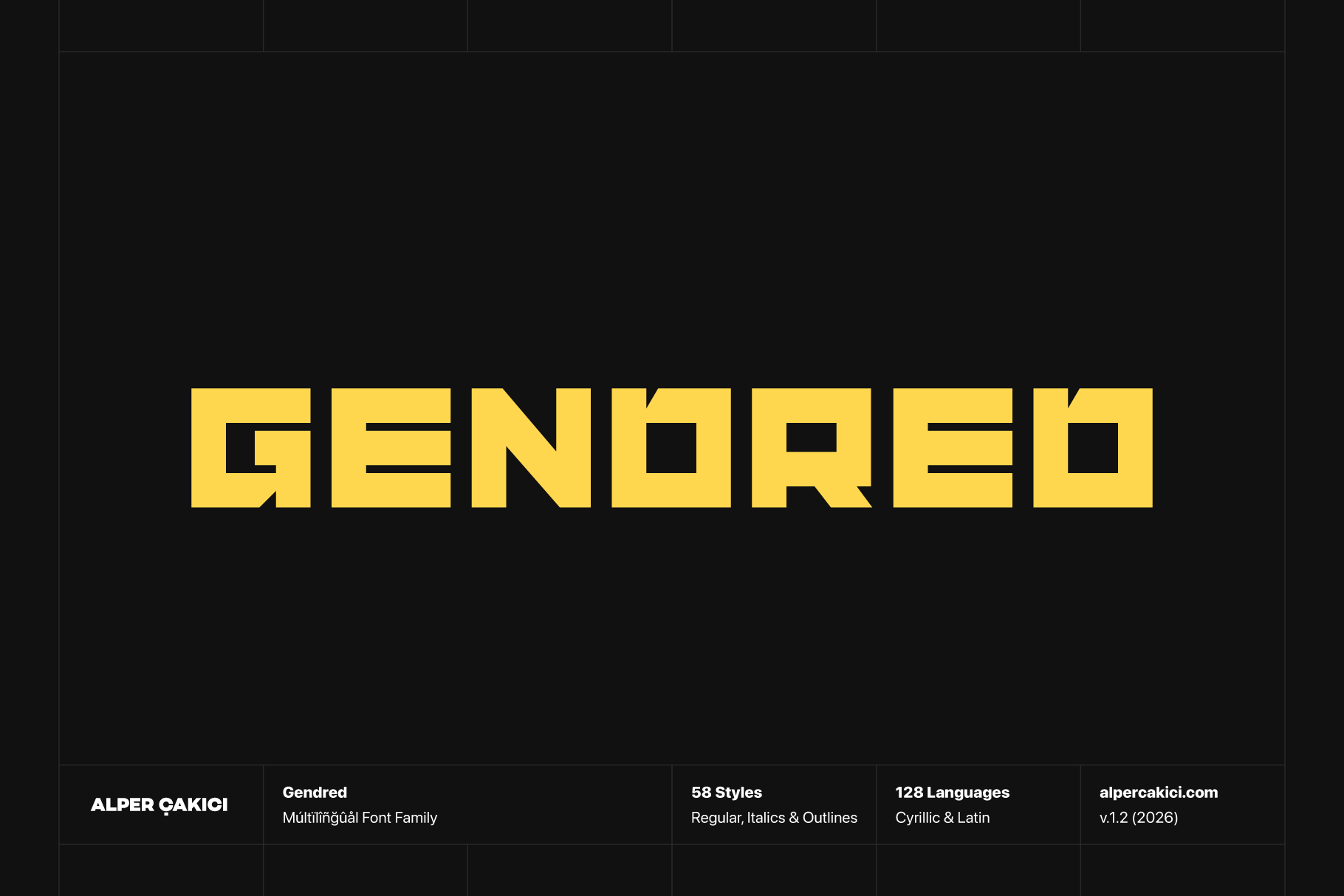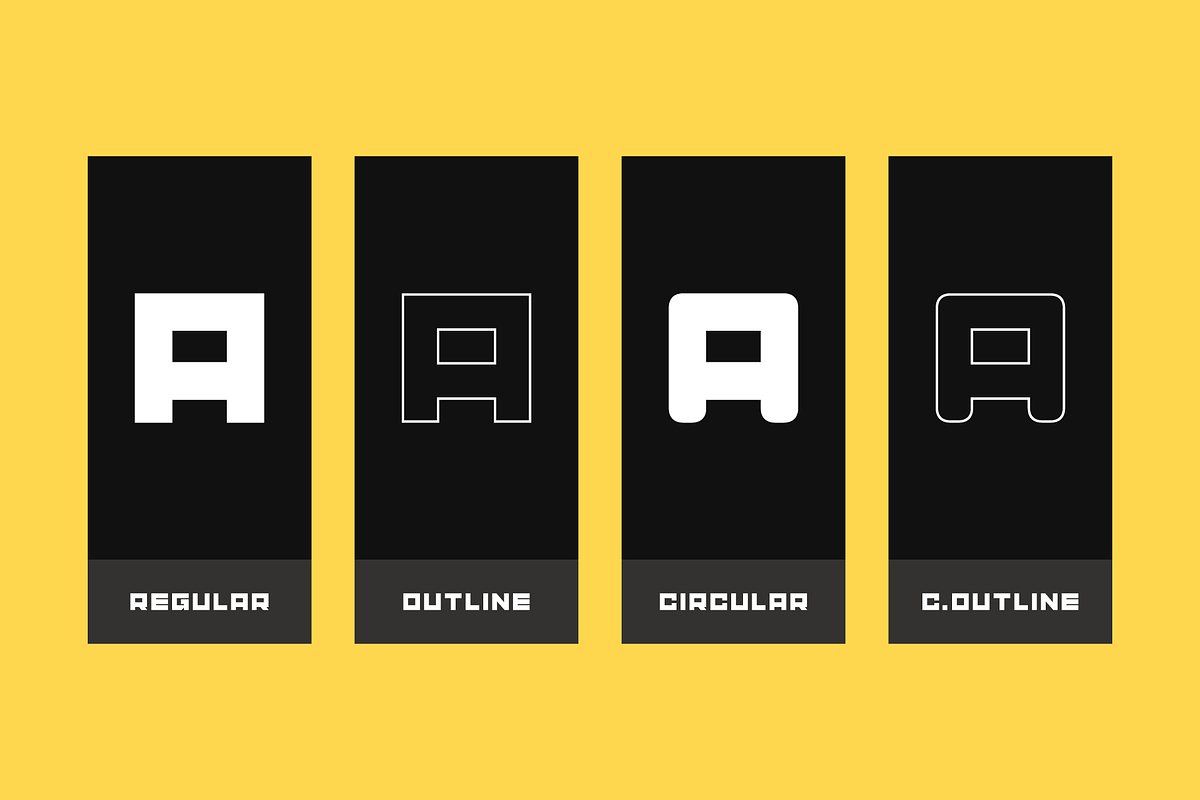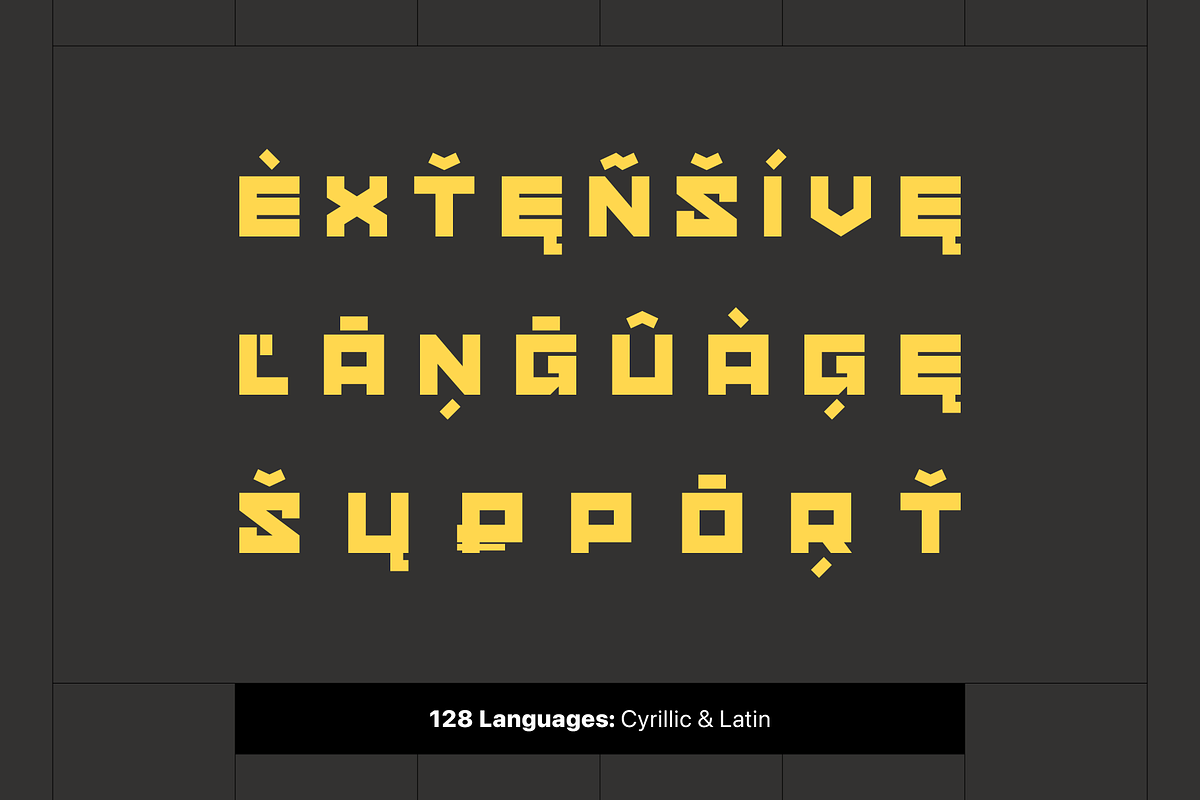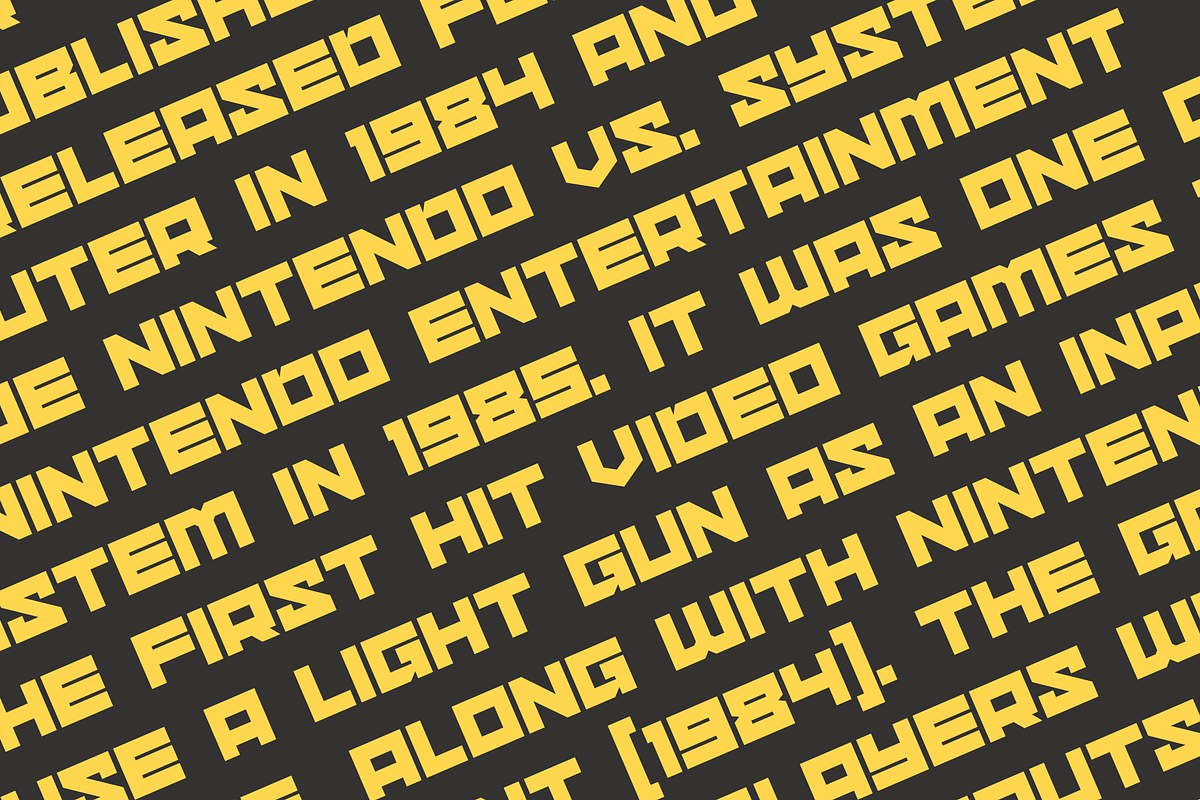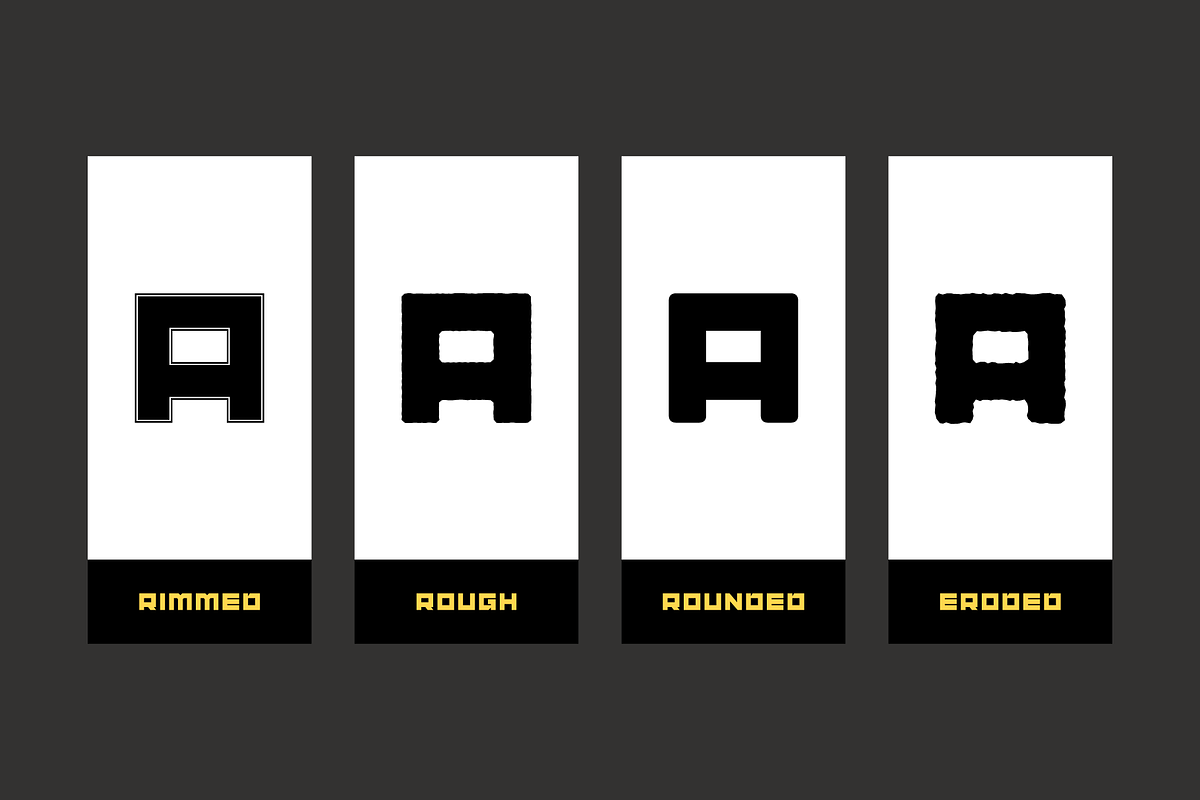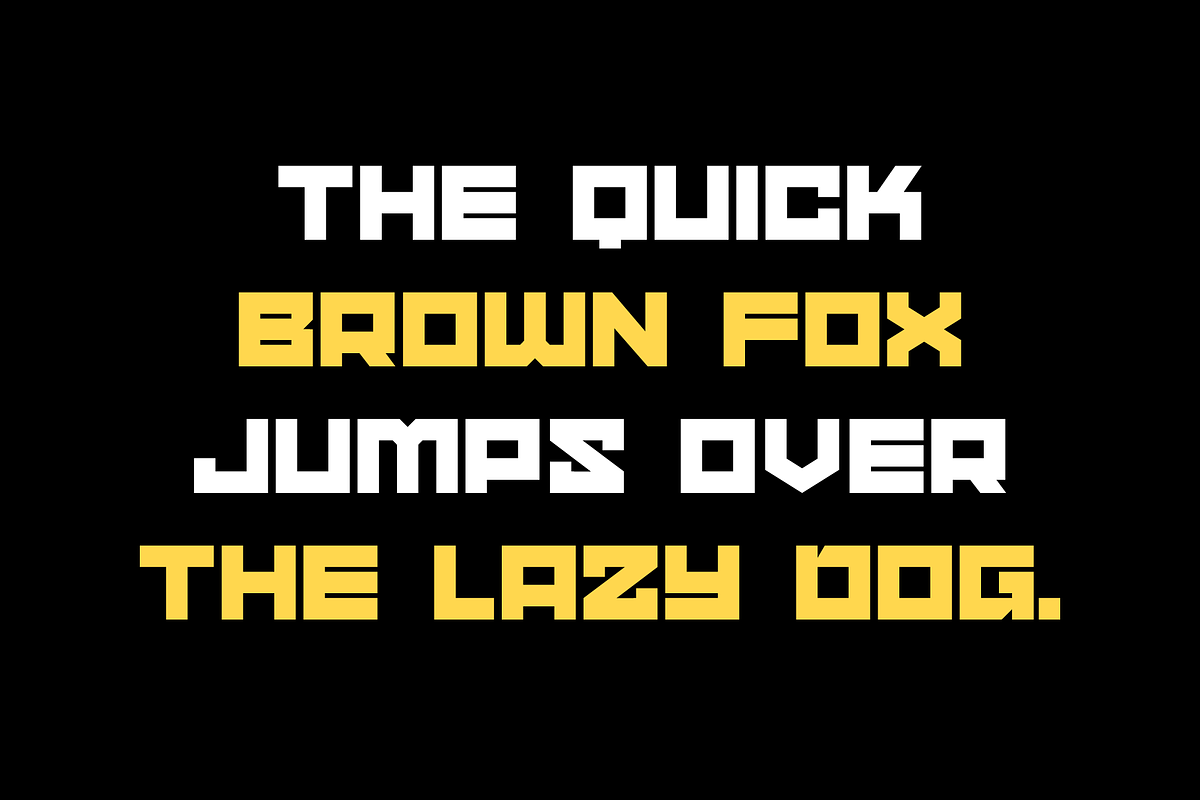
Gendred Squared Typeface
Gendred is a powerful and versatile squared block typeface built for modern visual impact. Designed with a strong geometric foundation, it balances sharp angular forms with softer rounded alternatives, giving designers complete creative flexibility.
With an extensive family of styles, Gendred ranges from clean and minimal to expressive and textured. Variants such as Angular, Rounded, Circular, Brush, Pencil, Outline, Inline, Rimmed, Rough, Noise, and Eroded allow you to shift tone effortlessly—from polished branding to raw, experimental visuals.
Each style includes matching italics, making the family highly functional across editorial, digital, and motion design. Whether you’re crafting bold headlines, logos, posters, or social media graphics, Gendred adapts seamlessly.
Supporting a wide range of Latin-based languages, Gendred is ideal for global projects while maintaining consistent readability and visual harmony.
Perfect for branding, advertising, sports graphics, tech interfaces, and contemporary layouts, Gendred delivers a confident and dynamic typographic voice.